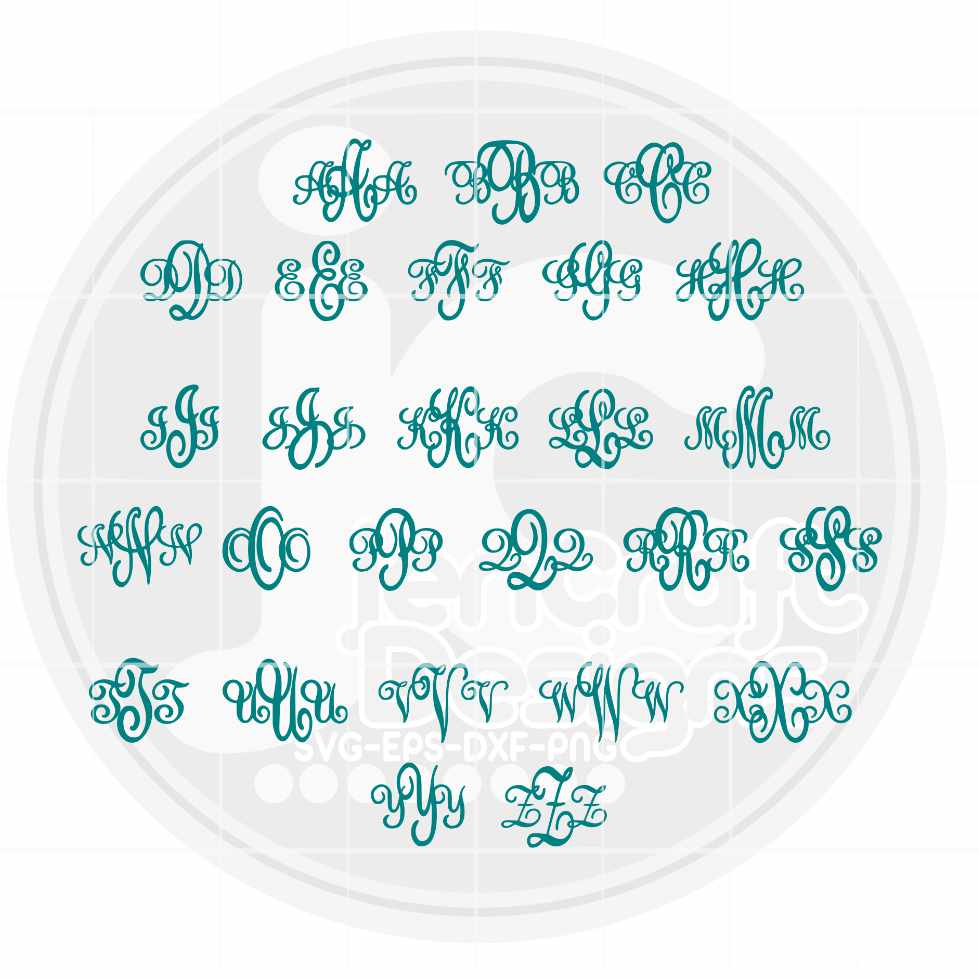
Elevate your monogram projects with the Fancy Vine Monogram Font — an elegant, curly vine-style installable font that lets you type beautiful monograms directly in Cricut Design Space, Silhouette Studio, Adobe Illustrator, Photoshop, Microsoft Word, CorelDraw, and more. No more uploading individual letters one by one!
This fancy vine monogram font is ideal for Cricut Design Space, Silhouette Studio, Sure Cuts a Lot, Adobe Illustrator, Adobe Photoshop, CorelDraw, Microsoft Word, and any program that supports installed system fonts. To achieve the classic monogram look, type lowercase for the outer letters and uppercase for the center letter. Letters can be ungrouped in Cricut Design Space and Silhouette Studio to adjust spacing.